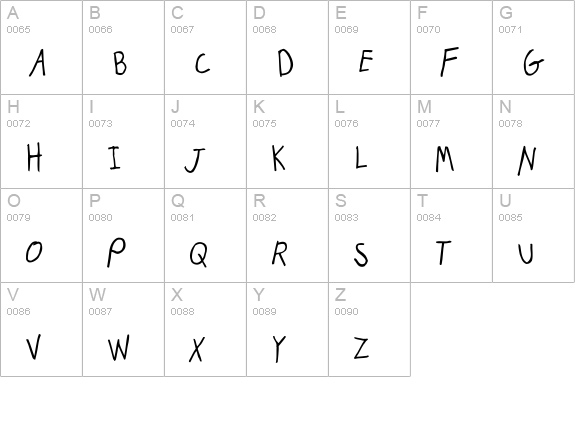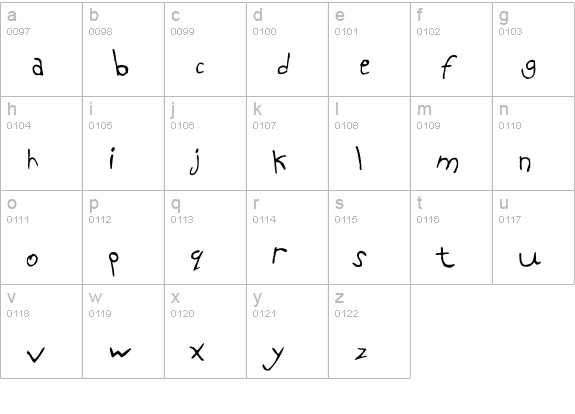
PFKidsPro-GradeOne Font Details
PFKidsPro-GradeOne font is a charming and playful typeface designed specifically for young learners at the first-grade level. With its friendly and easy-to-read characters, this font is perfect for educational materials, children's books, and classroom resources. The PFKidsPro-GradeOne font is meticulously crafted to enhance readability and engage young readers as they embark on their literacy journey. The best part is that this delightful font is available for free download at FontsMarket.com. Now teachers, parents, and designers can easily access this high-quality typeface to create engaging and educational content for children. Don't miss out on the opportunity to add a touch of fun and creativity to your next project with the PFKidsPro-GradeOne font. Download it today and bring your designs to life!